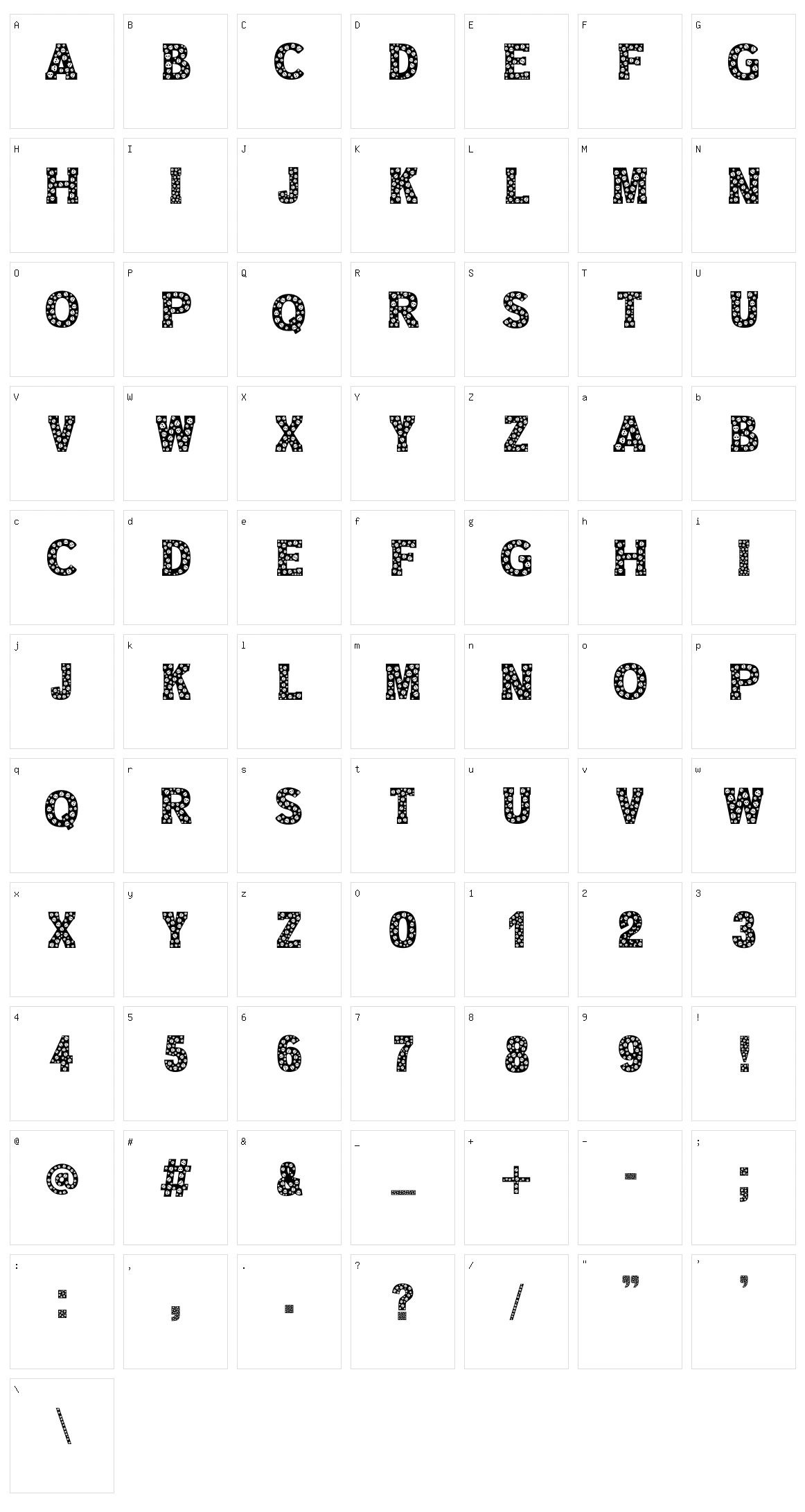
The free font Skeletor is carefully designed by Vladimir Carrer, showcasing a thoughtful balance of creativity and usability and falls under the Halloween font style. When you download the ZIP file, it contains only 7157.46 KB of font files, making it lightweight and quick to download. Please review the license details below to understand permitted usage and distribution rights. If license information is not available, we recommend using this font for personal projects only or contacting the author directly for commercial usage permissions.